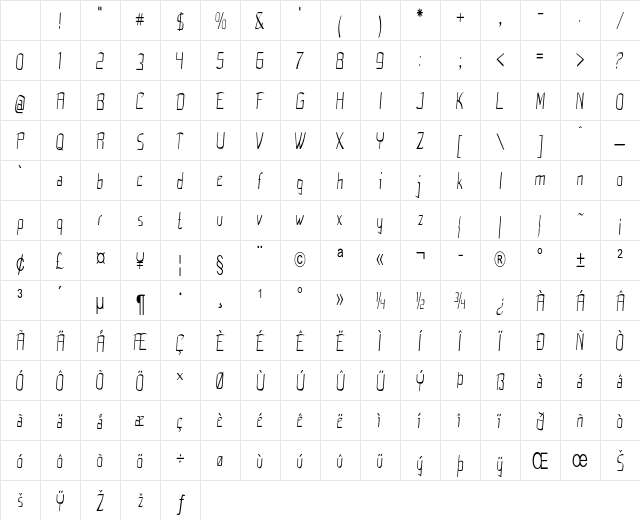
Flub is a composed and adaptable typeface that performs quietly and consistently across a wide range of design contexts. Its narrow stance lets it pack a punch even in space-constrained designs.